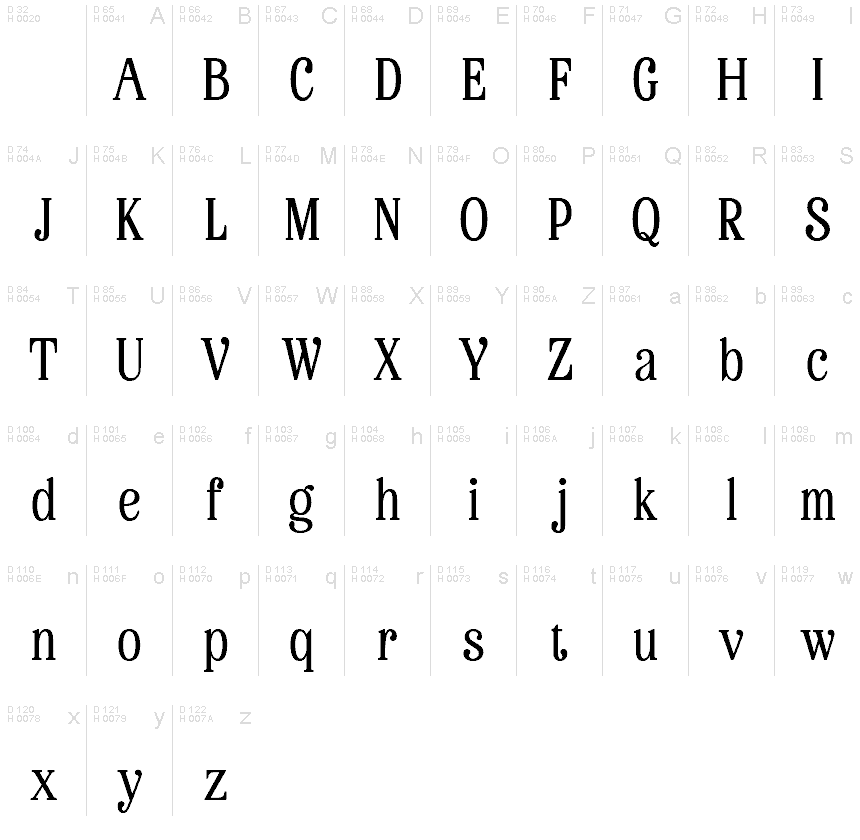
Helvine Demo Regular
Helvine font by Craft Supply Co is a condensed serif that beautifully embodies elegance and sophistication with a classic edge. Its refined presence and traditional appeal make it a superb choice for projects needing a font with subtle, elegant touches.